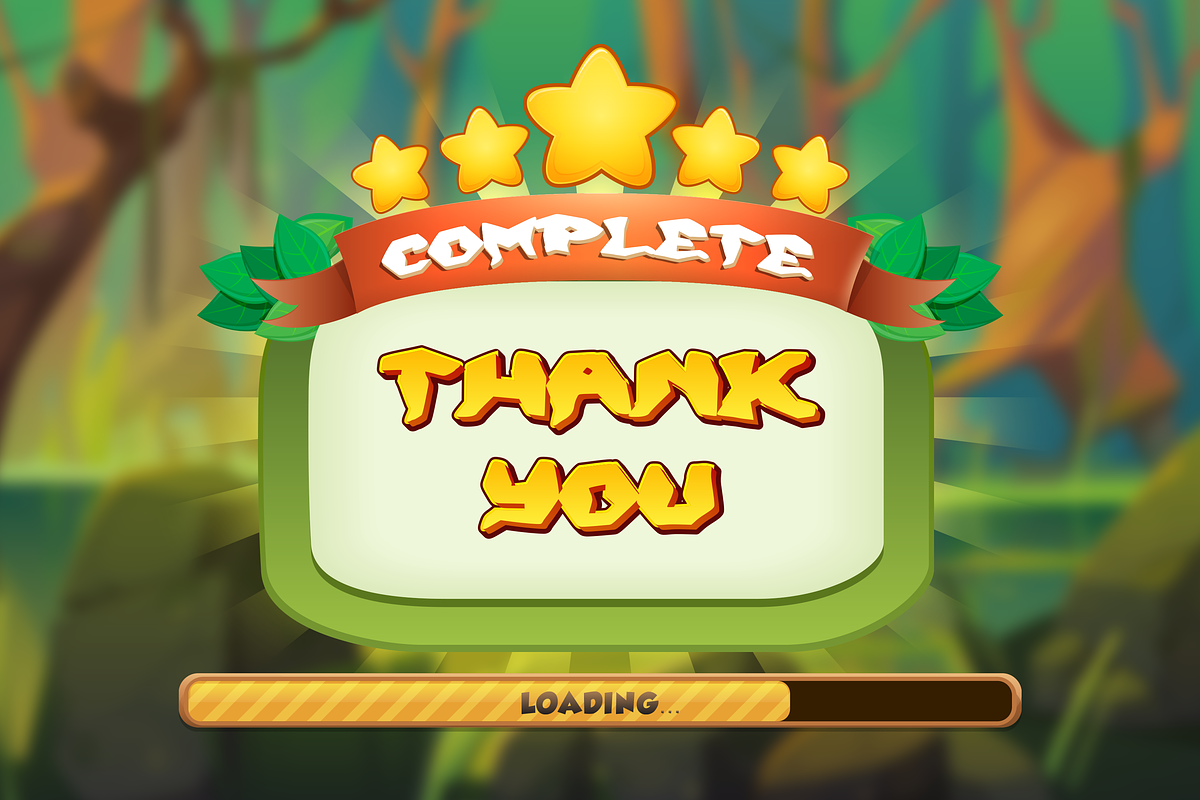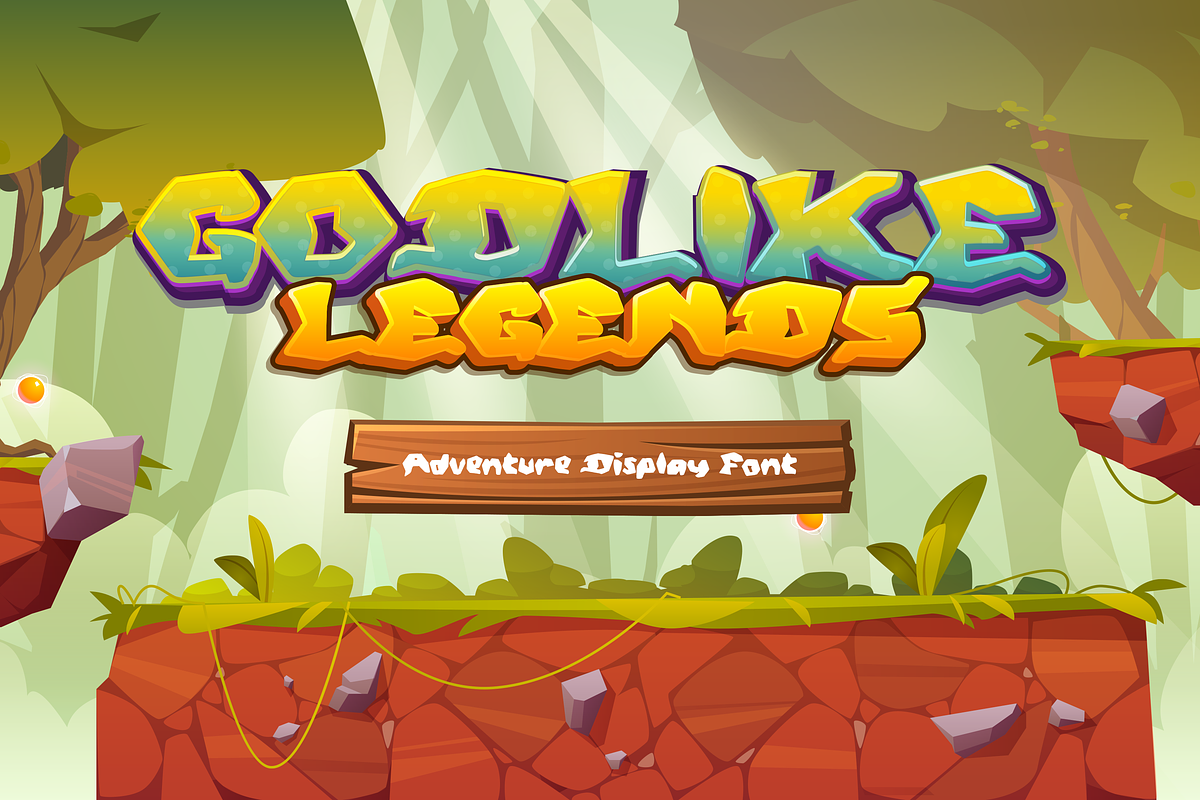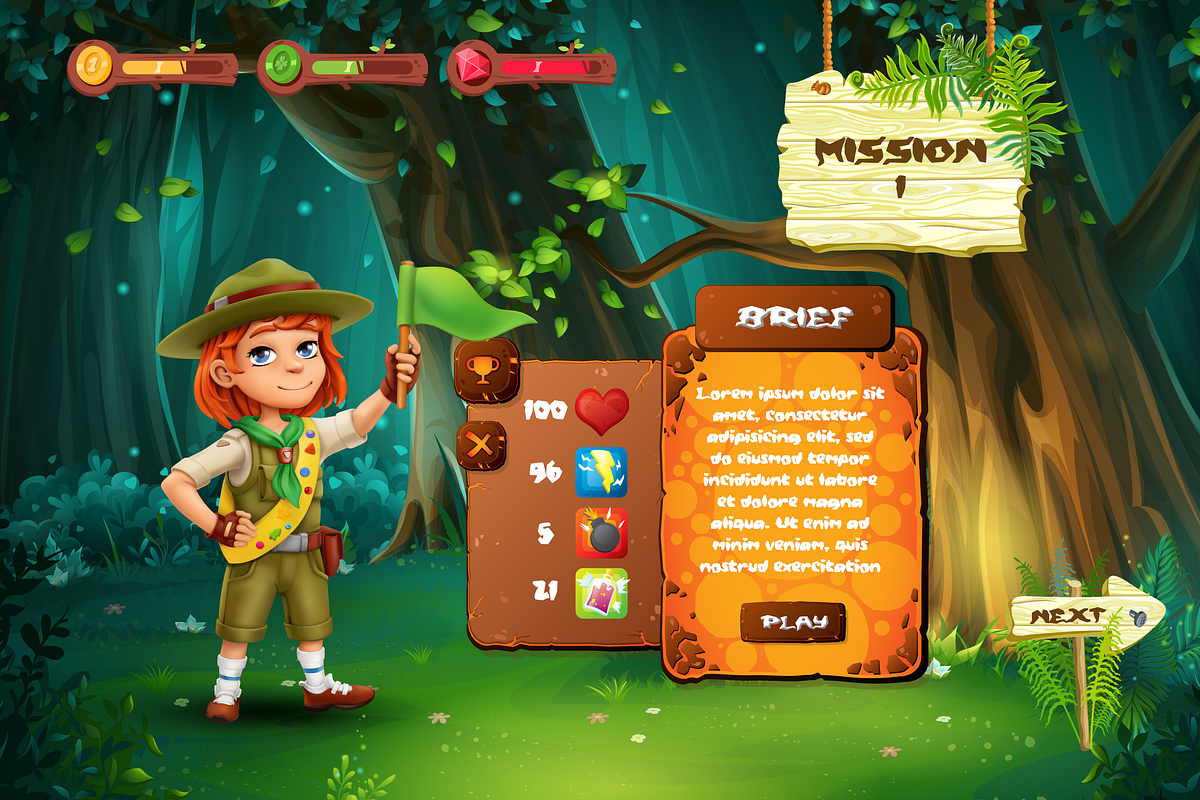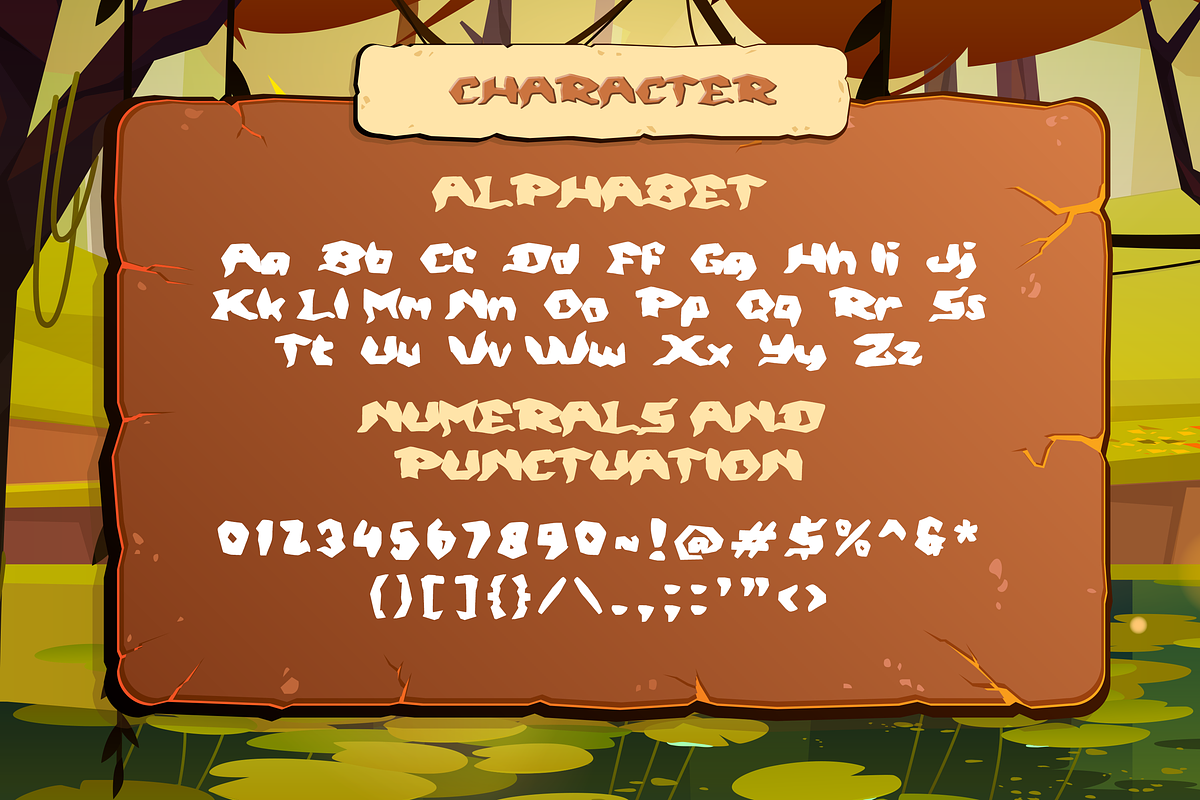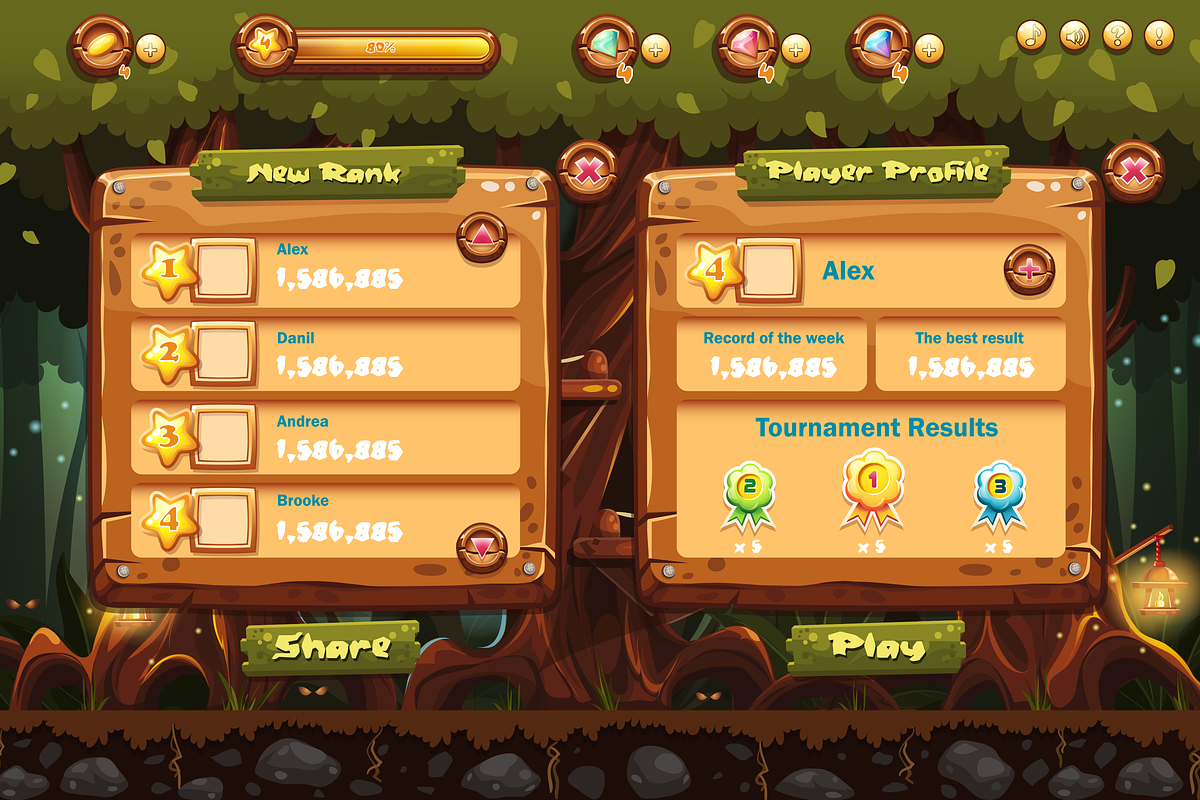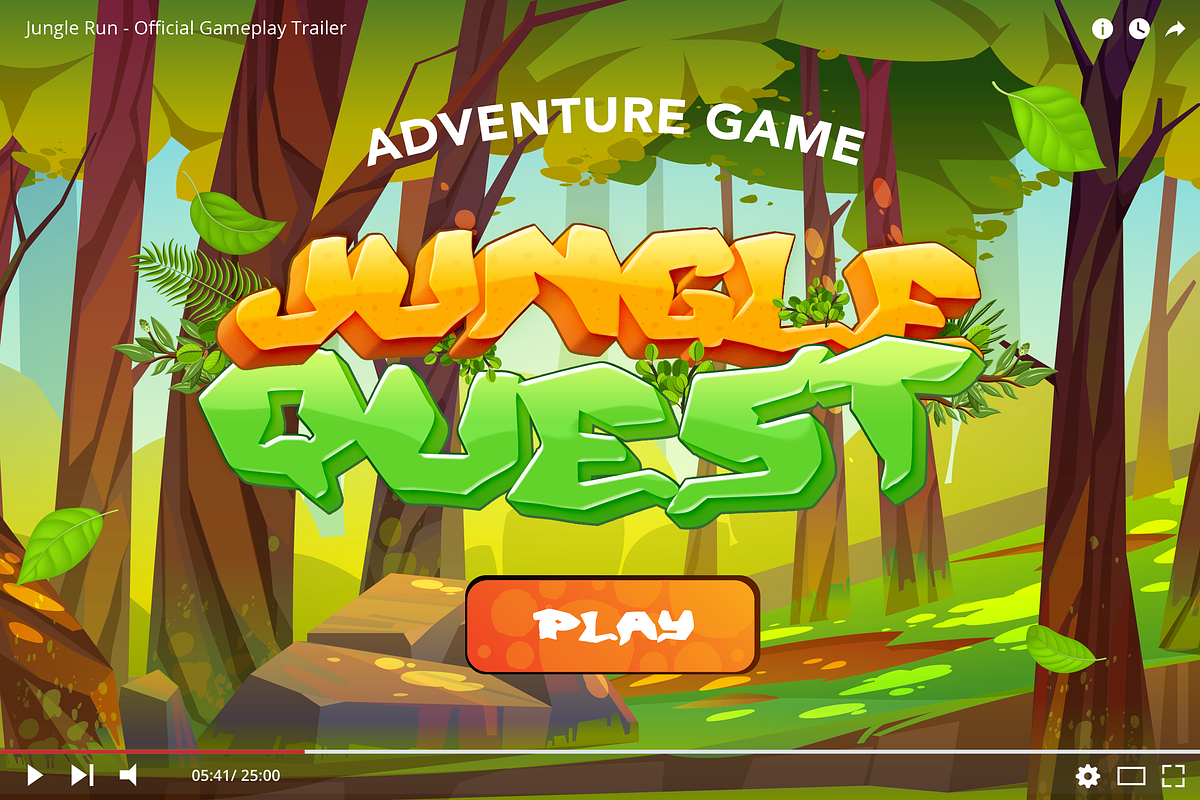
Godlikes Legend Game Display Font
Godlike Legends Display Font, is our new font and suitable for mockup or any work.
Great for Sticker, Invitation Card, Brochure, etc.